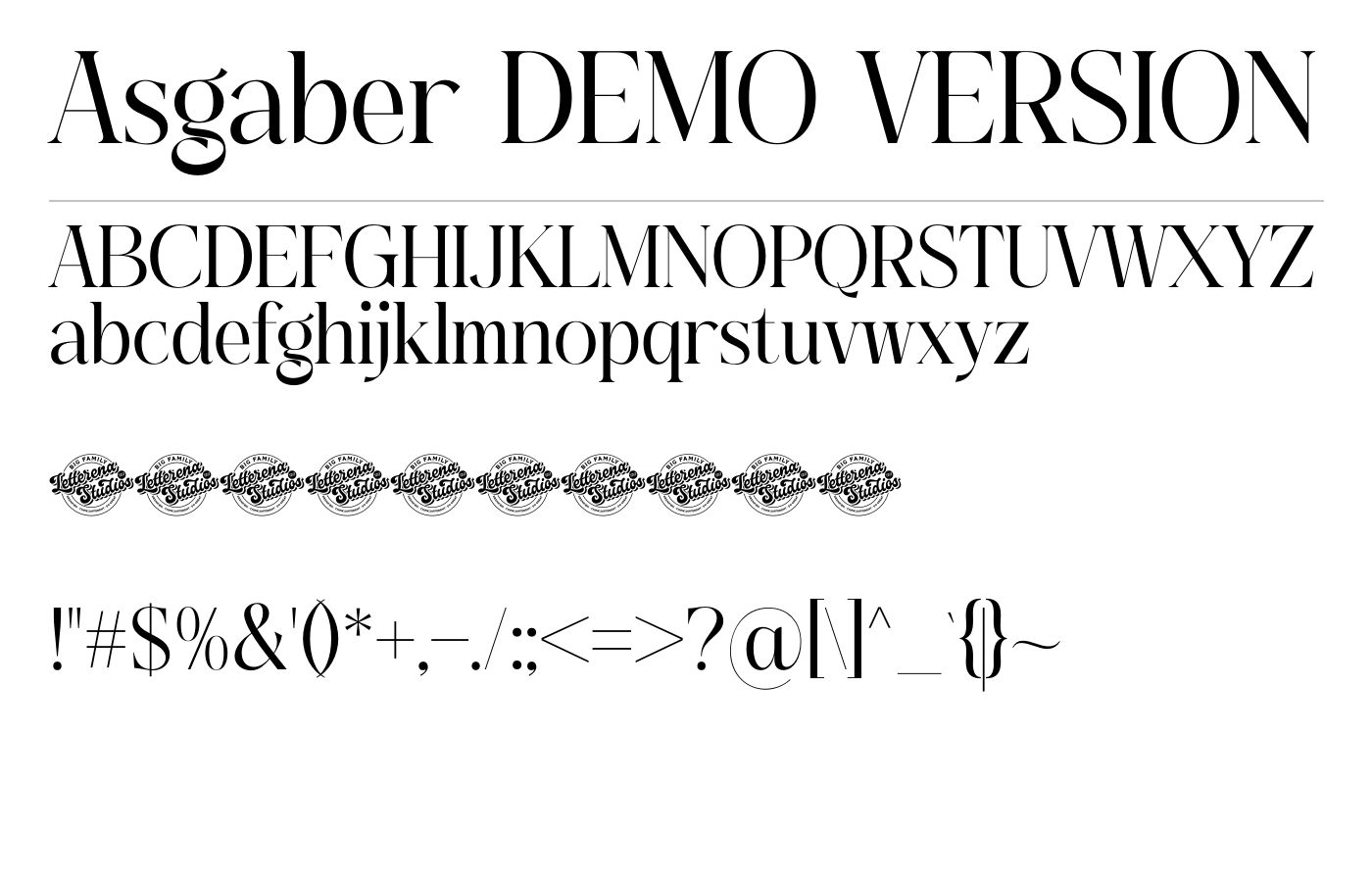
Asgaber DEMO VERSION is a refined serif font characterized by its high contrast between thick and thin strokes, slender serifs, and elegant, tall letterforms that convey a sophisticated and classic feel. Its narrow width and delicate details make it ideal for luxury branding, editorial headlines, and fashion design, where a timeless, stylish impression is desired. This font works best in display settings where elegance and readability are key, adding a touch of refinement to any project.